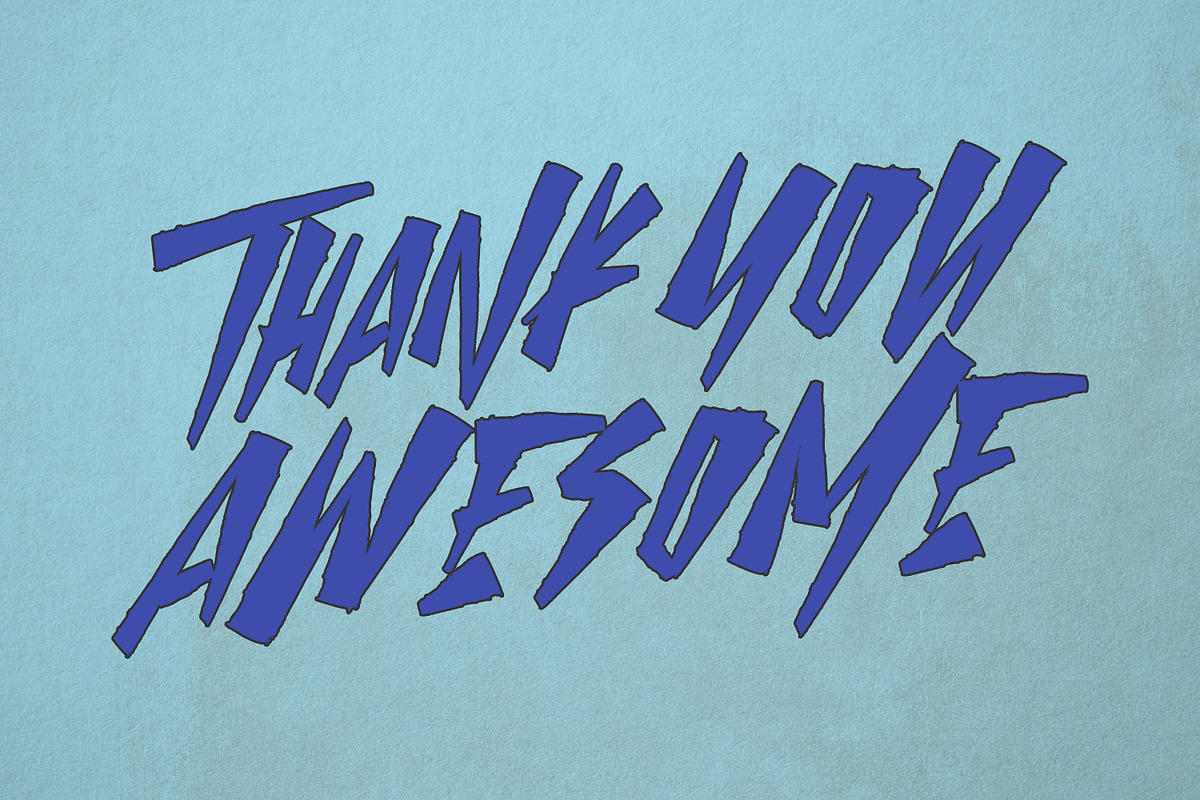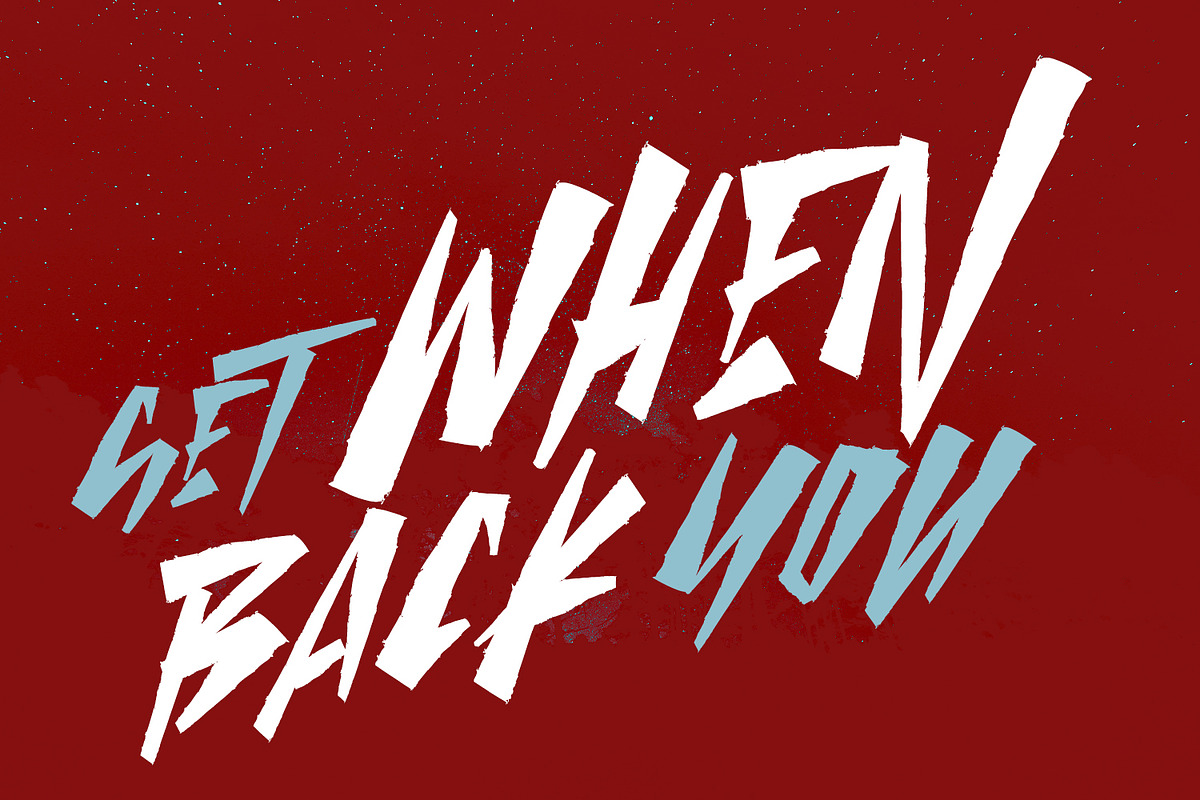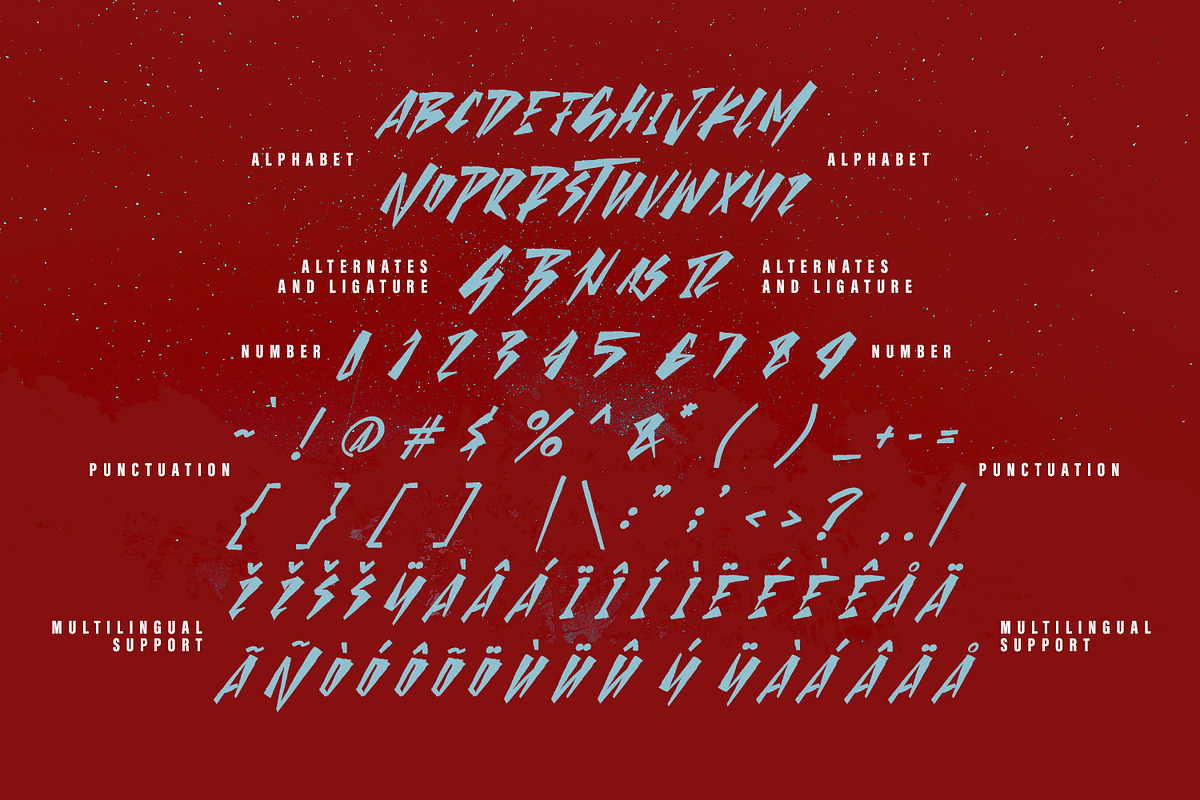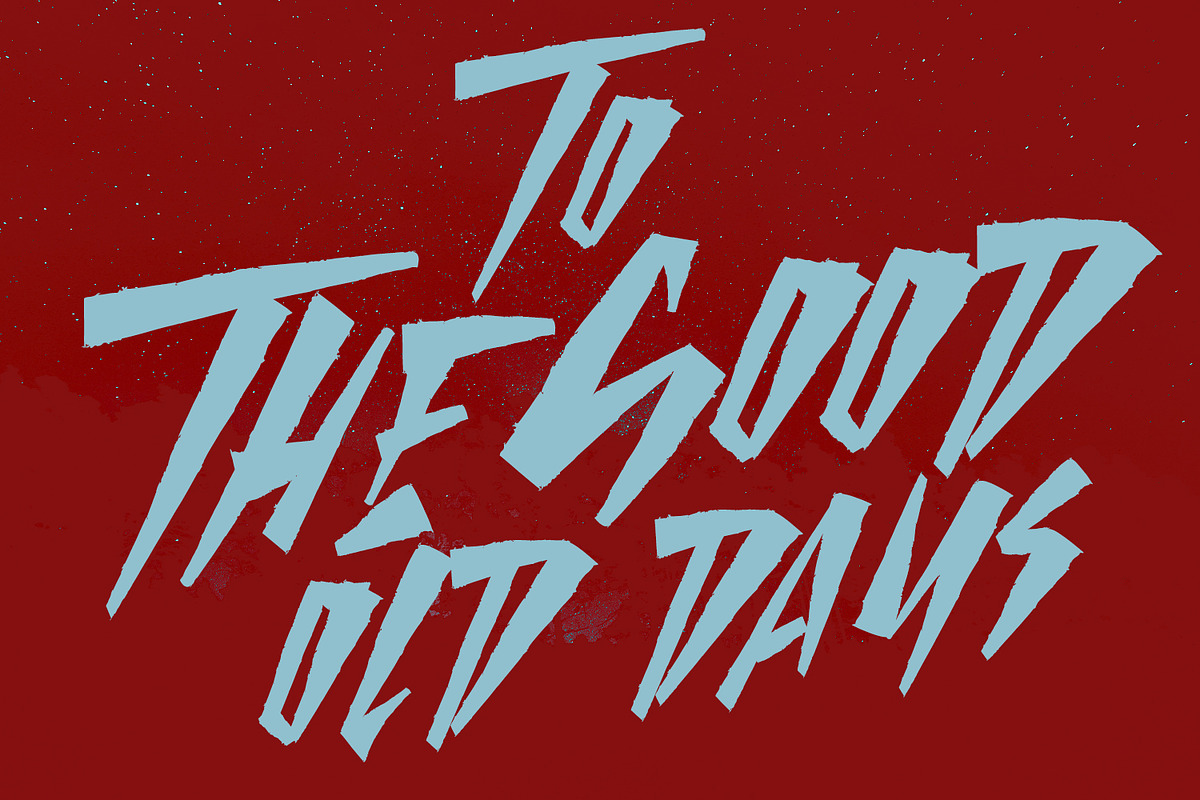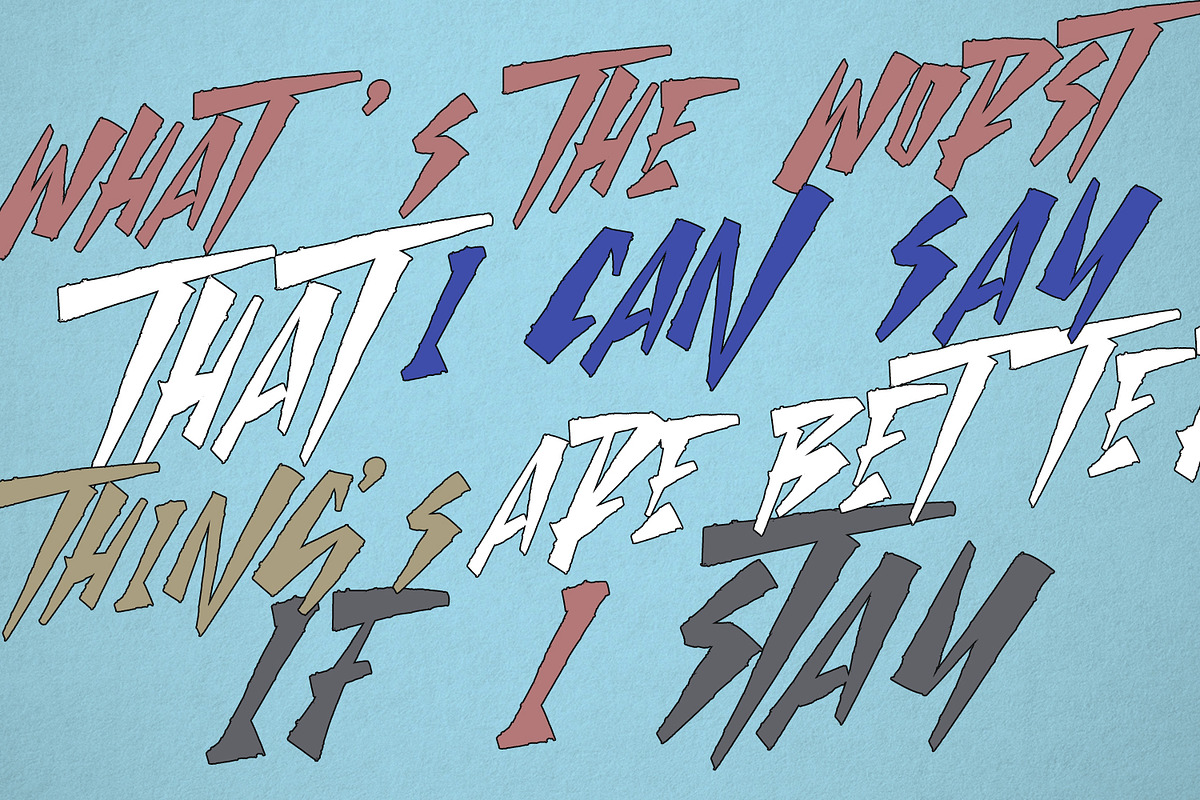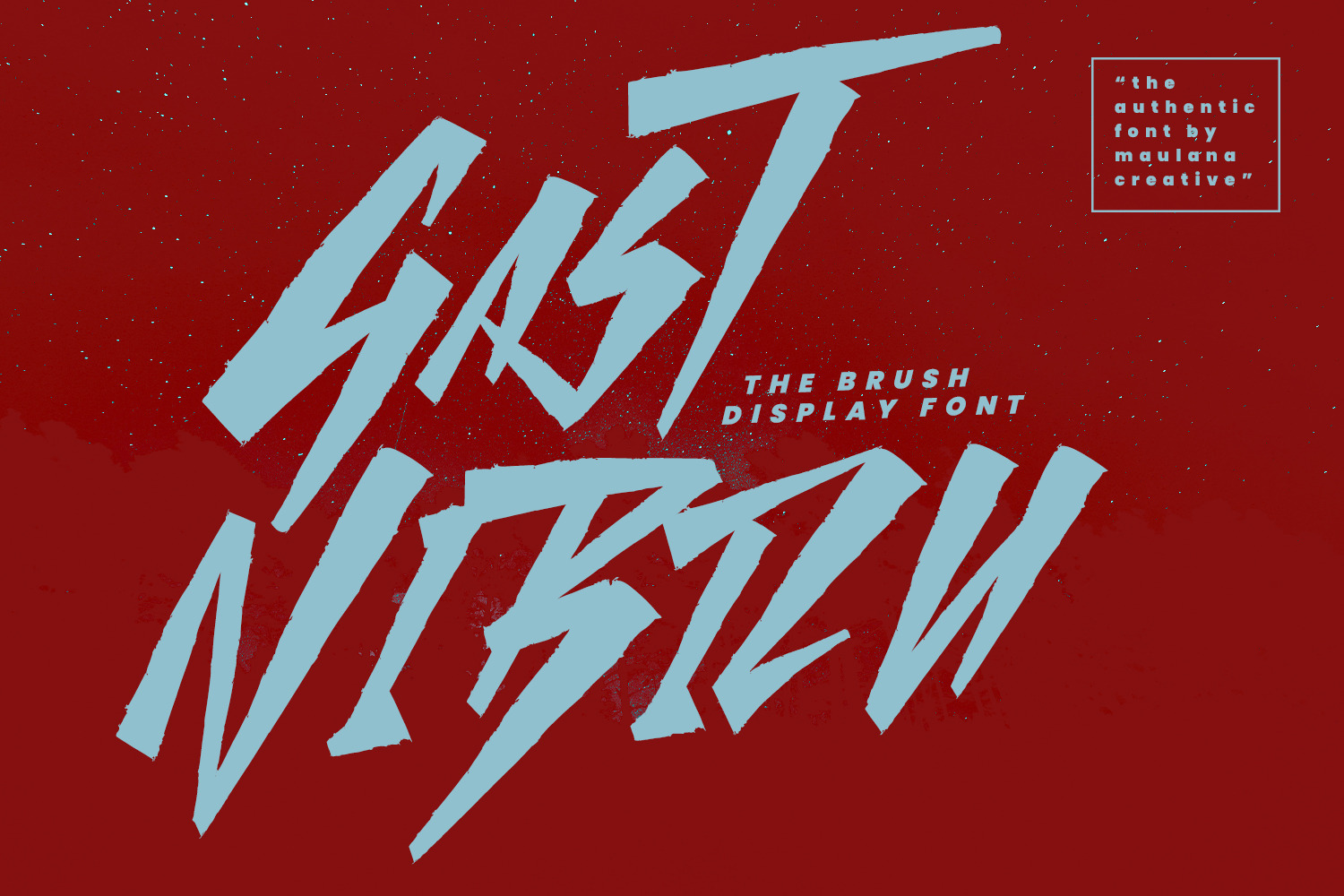
Gast Nibizu Brush Display Font
Give your designs an authentic brush handcrafted feel. “Gast Nibizu Brush Font” is perfectly suited to signature, stationery, logo, typography quotes, website header, branding and more.